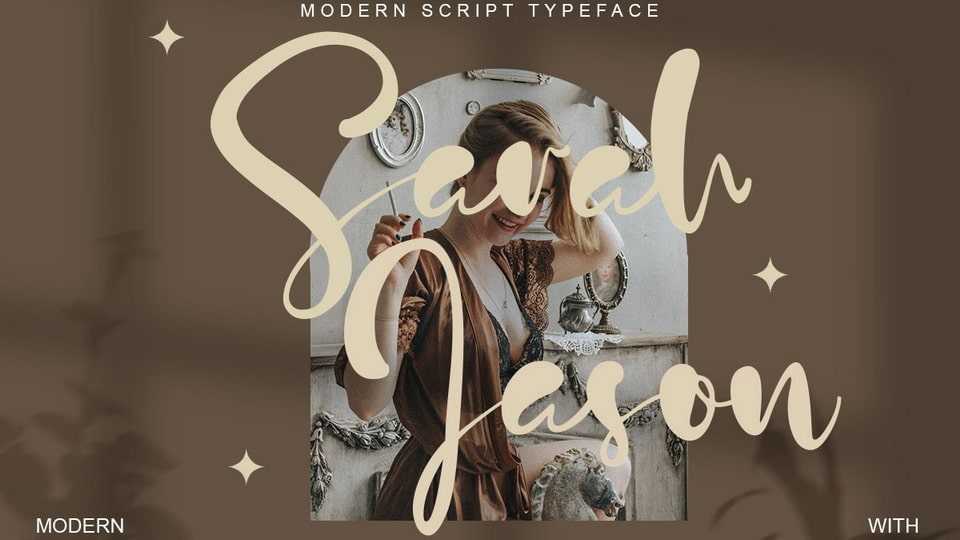
Download Sarah Jason font, a chic and authentic script typeface. Sarah Jason is suitable for any branding project like logo, t-shirt printing, sporting design, and many more.